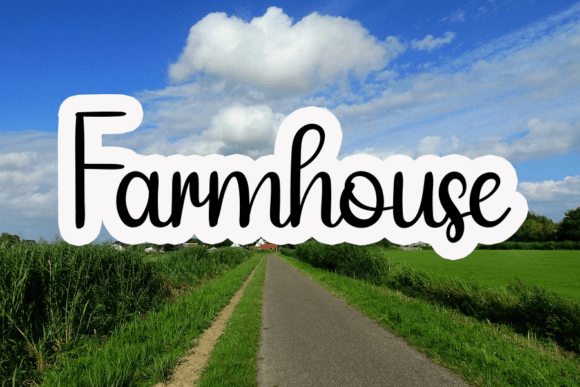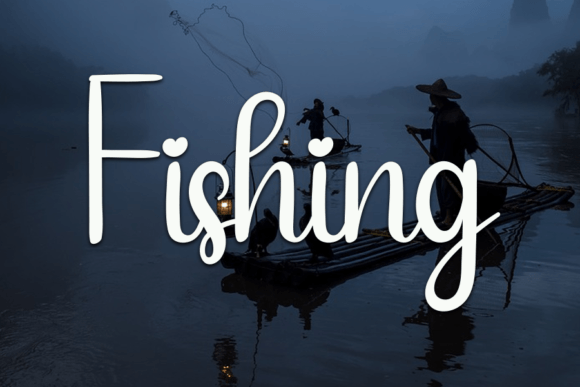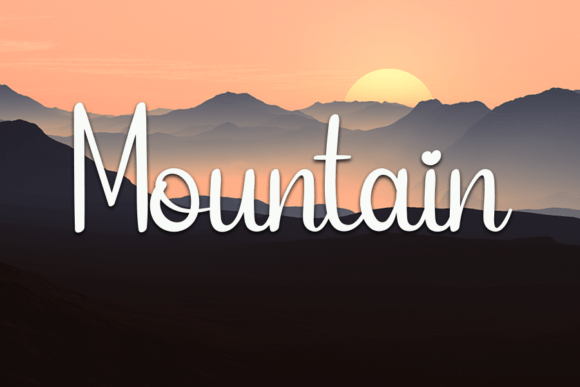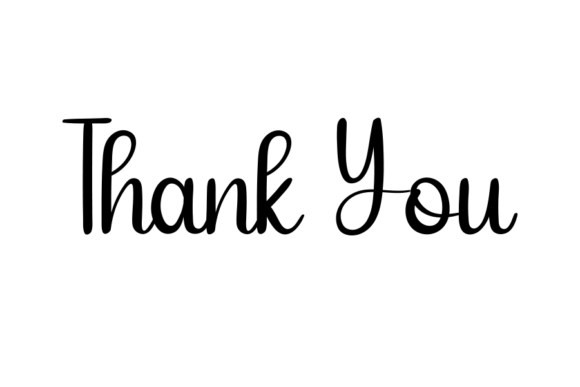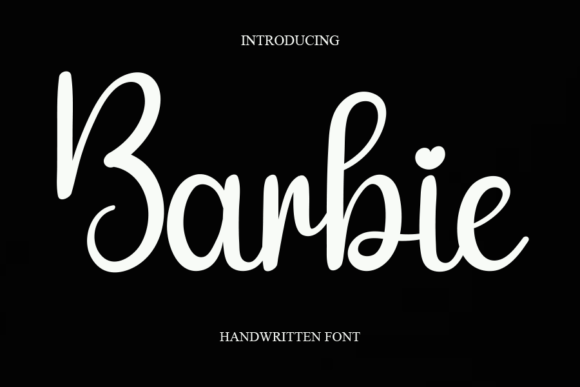
Barbie Font
Add a Sweet and Natural Touch with Barbie Handwritten Font
The Barbie Handwritten Font is a charming and playful typeface that brings warmth, cuteness, and authenticity to your designs. With its clean curves and adorable letterforms, Barbie adds a sweet, handwritten feel that’s ideal for both professional and personal projects.
Whether you’re creating fun invitations, product packaging, or eye-catching headlines, Barbie is here to help your design shine with personality and friendliness.
Perfect for Cards, Headlines, Invitations, and More
Barbie is especially well-suited for greeting cards, thank-you notes, and invitations. Its neat and organic appearance gives your message a personal, handwritten vibe that feels heartfelt and genuine.
In addition, this font works wonderfully for headlines, social media graphics, and DIY projects. Its slightly bouncy baseline and natural stroke width make every word stand out while remaining highly readable. From quirky birthday cards to cheerful banners, Barbie gives your work a joyful boost.
A Versatile Script for Digital and Print Use
One of the key strengths of the Barbie Font is its flexibility. It looks equally beautiful in digital designs and print layouts. Whether you’re creating Pinterest quotes, Instagram posts, flyers, or product labels, Barbie maintains its elegance and clarity.
To keep your layout clean and balanced, consider pairing Barbie with a simple sans-serif typeface. Use Barbie for titles or highlights and the complementary font for supporting text. This ensures your design stays stylish and easy to read.
Designed to Feel Handcrafted and Adorable
Barbie’s charm lies in its handcrafted style. Each letter feels like it was written by hand, adding authenticity and warmth to your message. The font’s soft curves and evenly spaced strokes give it a youthful, sweet character that’s perfect for designs aimed at children, women, lifestyle brands, or seasonal campaigns.
Despite its cute appearance, Barbie remains structured enough to be used in professional branding and packaging. It gives your design a personal edge without losing polish.
Why Choose Barbie Handwritten Font?
Here’s what makes Barbie a favorite among creatives:
• Adorable handwritten style with a neat structure
• Perfect for cards, headers, invitations, and social media
• Suitable for both digital and print use
• Offers warmth, friendliness, and versatility
• Easily pairs with minimalist typefaces for design balance
Brighten Your Designs with Barbie
In conclusion, the Barbie Handwritten Font is a delightful addition to your type collection. Its sweet and friendly nature makes it ideal for creative work that needs a natural and expressive tone. From heartfelt messages to bold design statements, Barbie will bring charm, joy, and elegance to your next project.